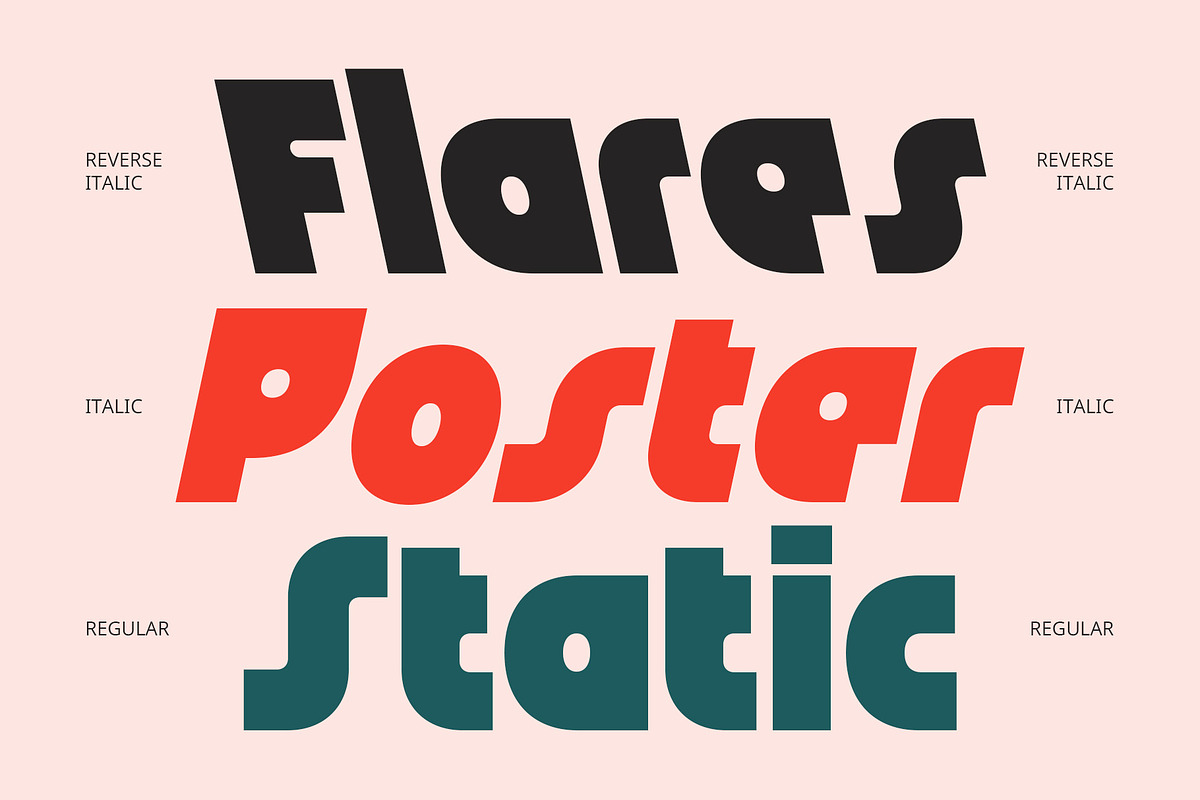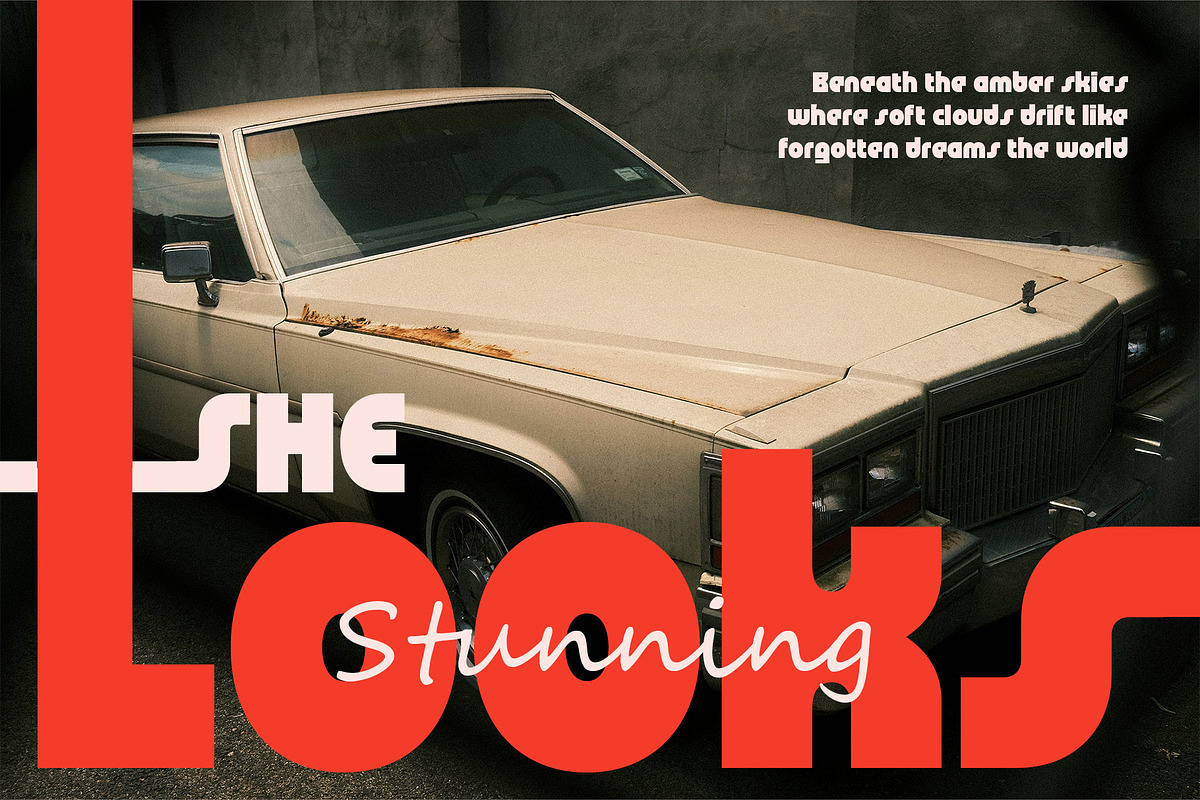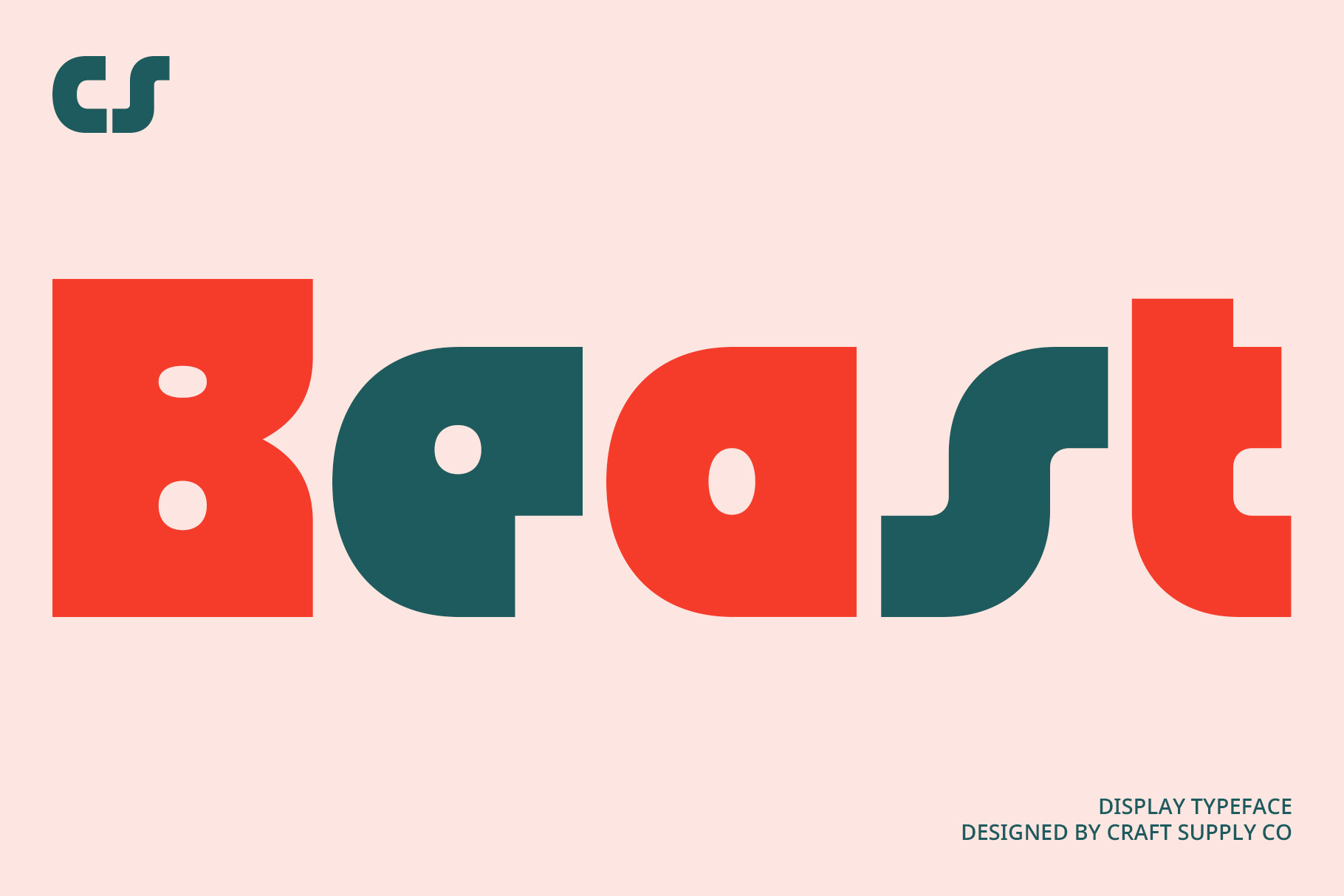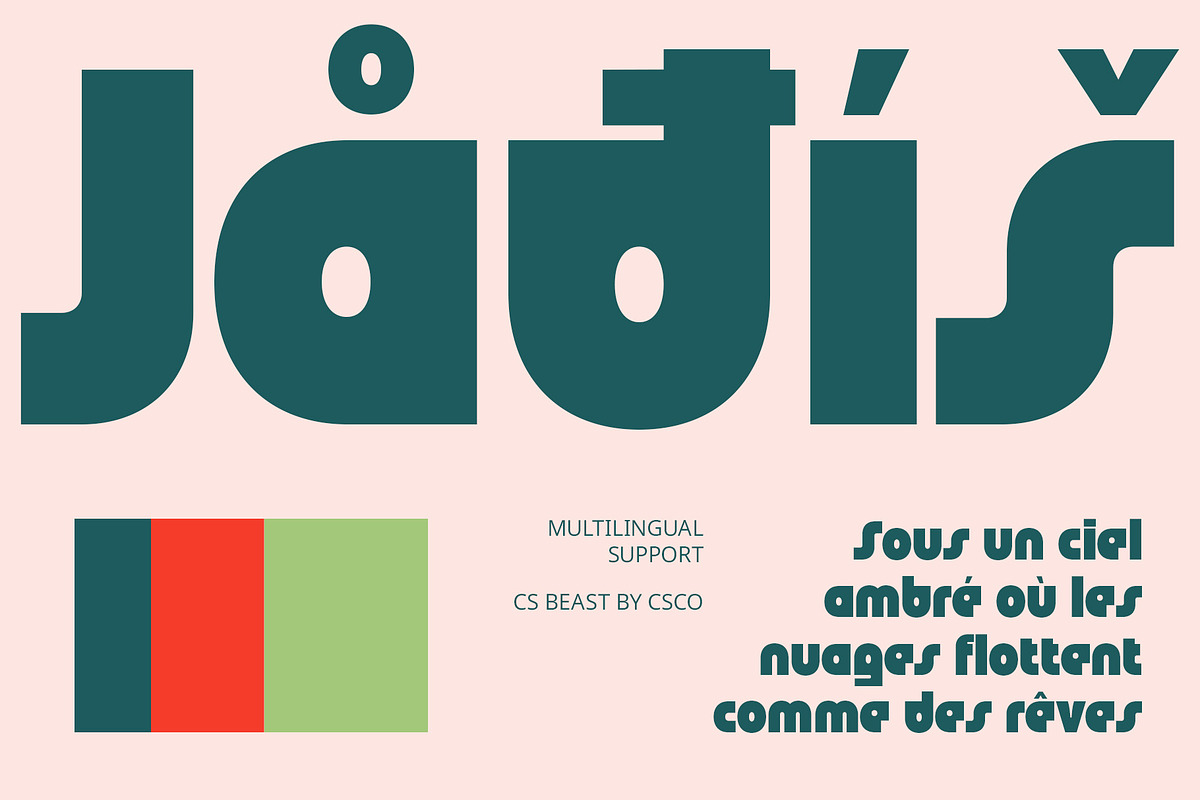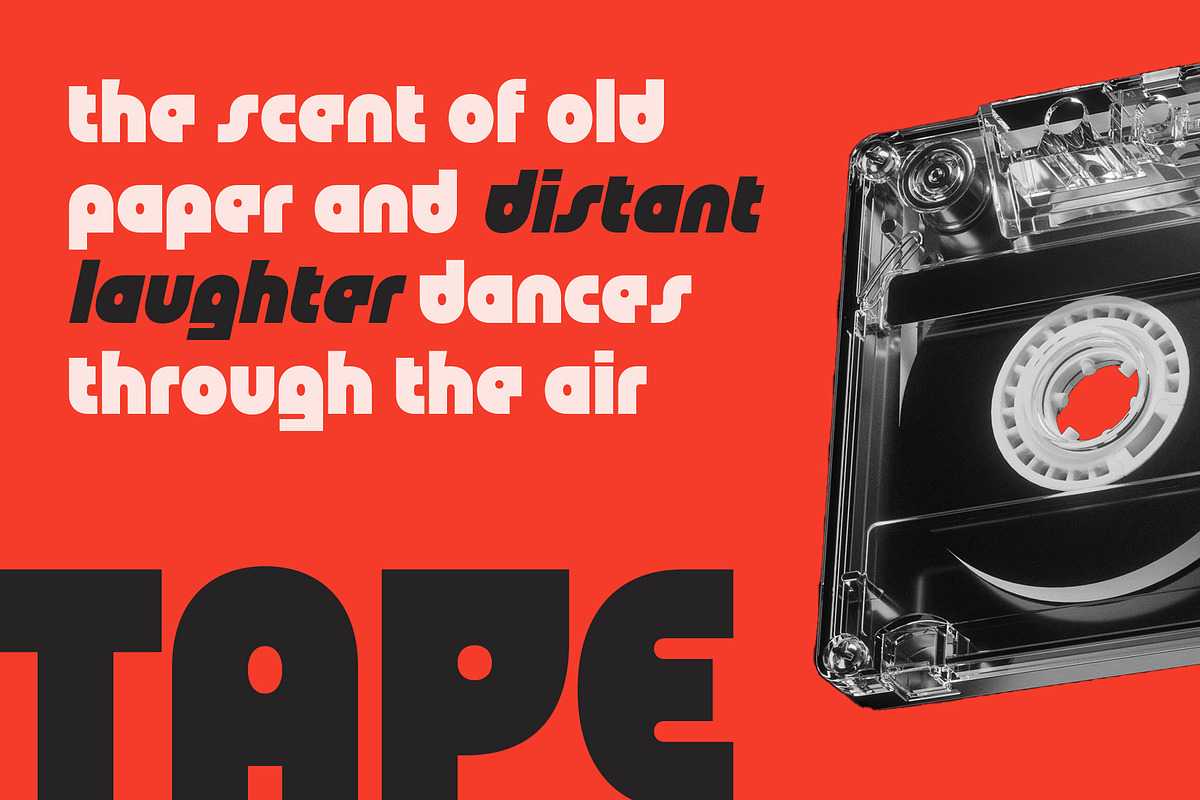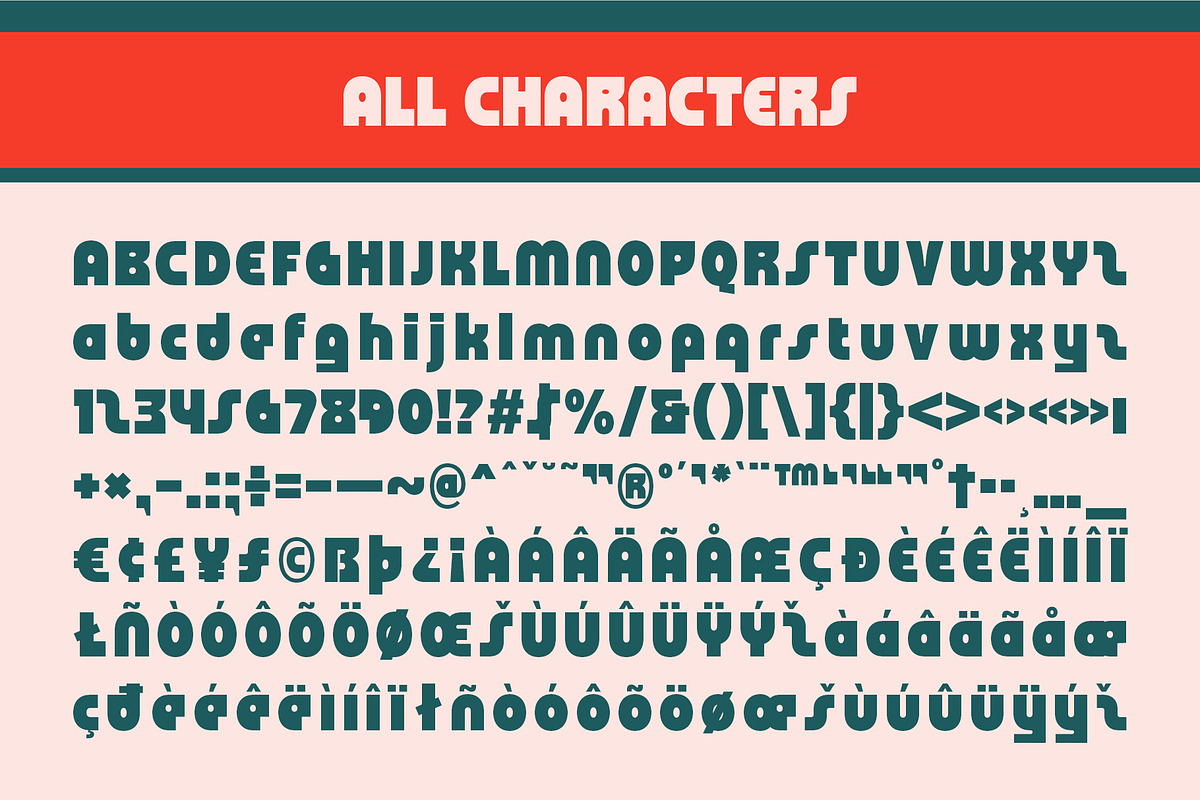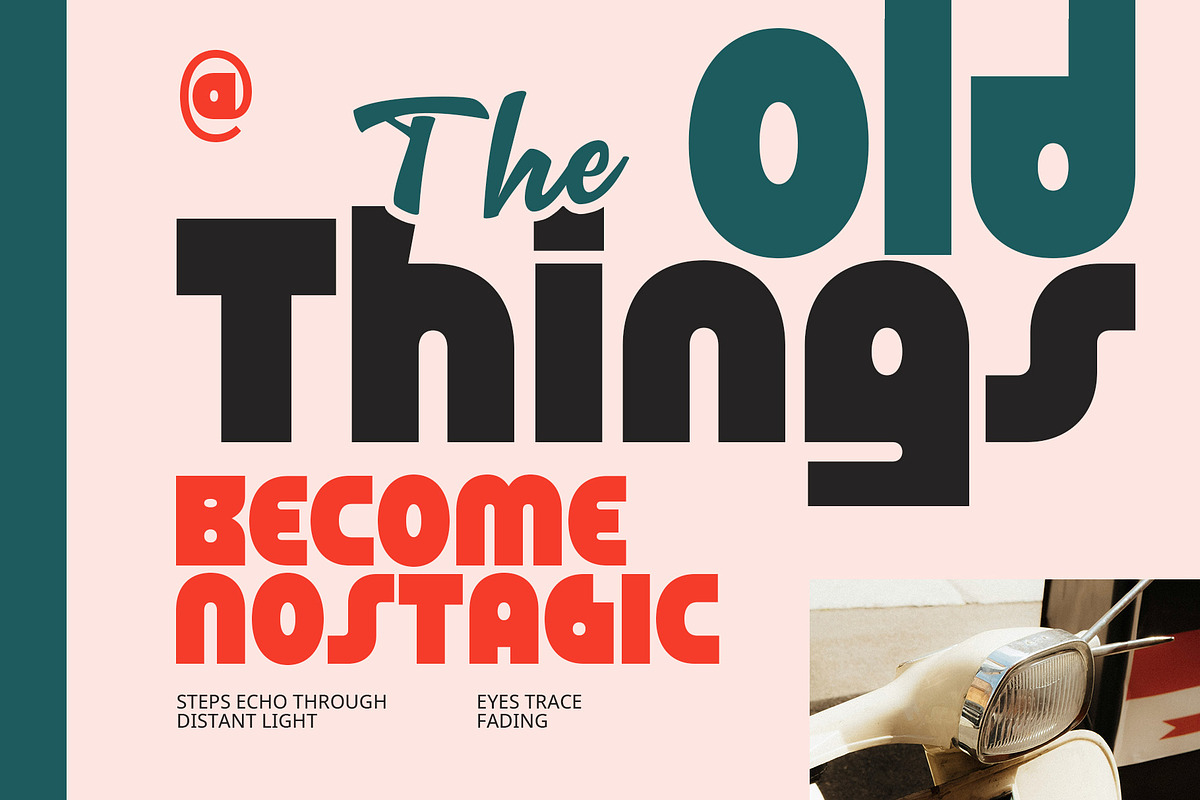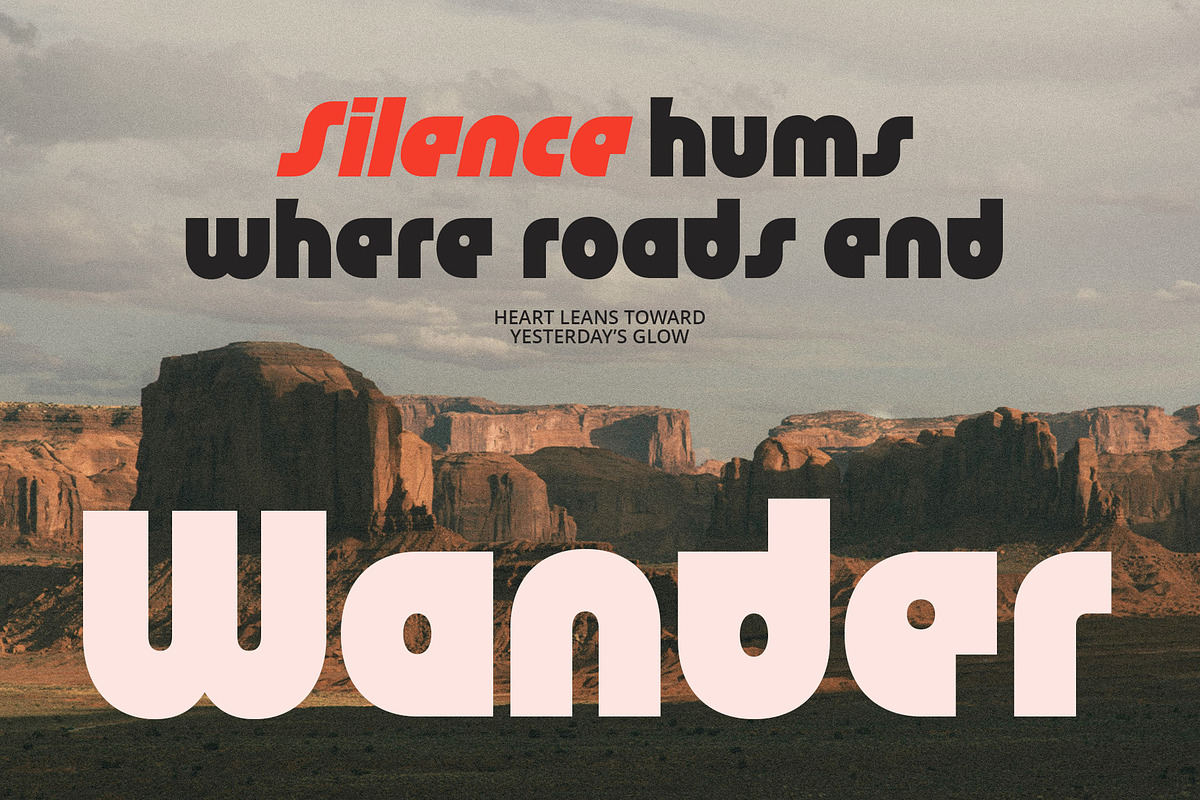
CS Beast – Bold Font
CS Beast – Bold 90s-Inspired Display Font
Nostalgic, Bold, and Full of Character CS Beast is a bold retro display font inspired by the clean yet energetic typography of the 1990s. Its strong, geometric letterforms channel the bold aesthetics of pop culture from that decade—recalling everything from arcade games and TV commercials to magazine headlines and product packaging. Designed to be fun, punchy, and attention-grabbing, this font brings playful energy into any modern design.
Retro Roots with a Contemporary Twist Despite its vintage roots, CS Beast retains a contemporary edge with its balanced letterforms and clean finish, making it highly adaptable for today’s creative needs. Whether you’re crafting youthful branding, retro-themed event posters, or pop-style social media graphics, this font delivers visual excitement with a fresh and familiar vibe.
Designed to Pop and Play With its chunky strokes, clear structure, and confident presence, CS Beast thrives in projects that need to stand out and evoke joy. The font’s playful and daring tone makes it especially suitable for children’s products, music visuals, urban fashion labels, or anything that embraces a bold and vintage-modern aesthetic. CS Beast invites designers to revisit a colorful era of creativity—when bold fonts ruled the page and expressive visuals led the way.
- CS Beast Regular
- CS Beast Italic
- CS Beast Reverse Italic